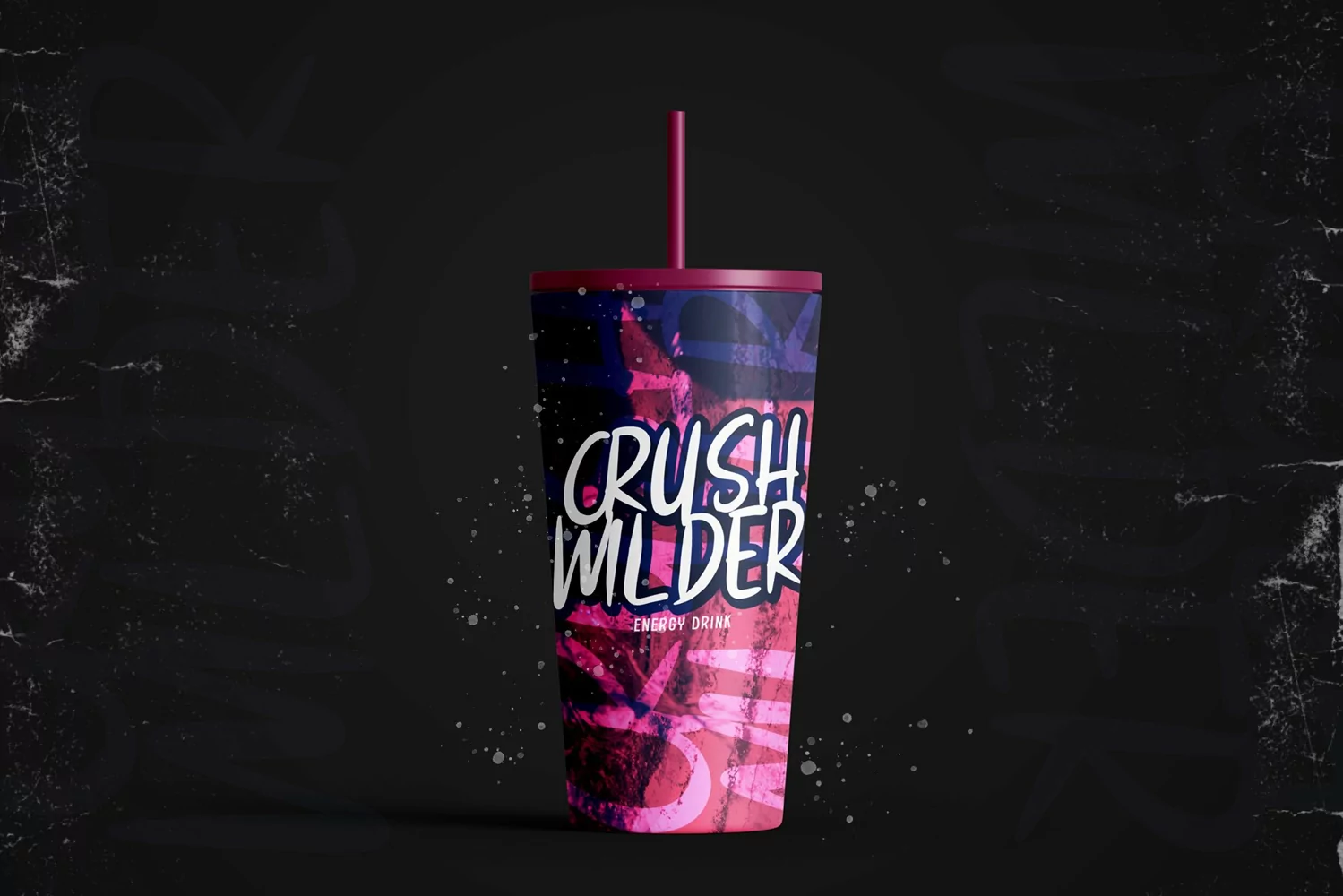
Brushio is a brush display typeface. Perfect for display, poster, branding, packaging, merchandise, business card, logo, logotype, greeting card, crafting, print, t-shirt, pin, header, tittle, many more.